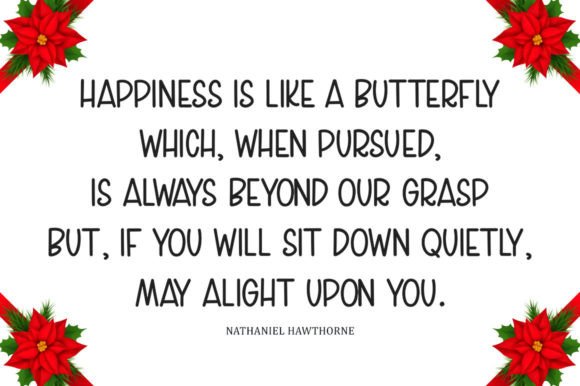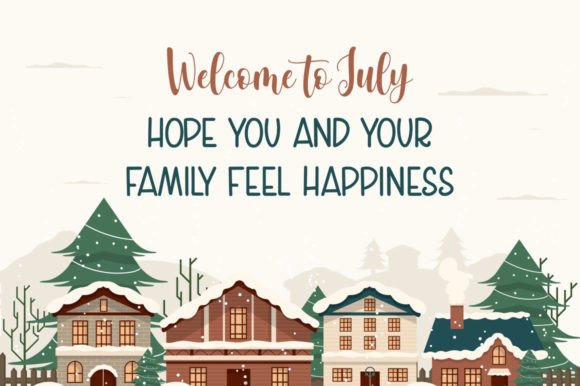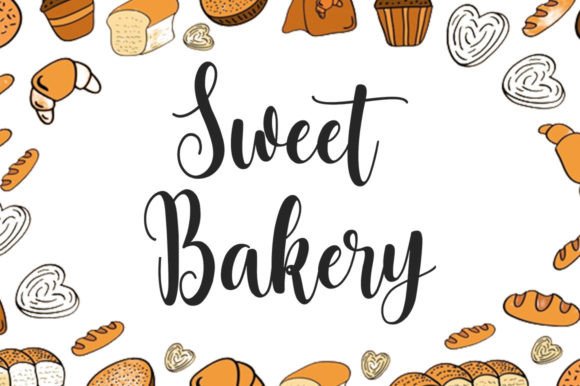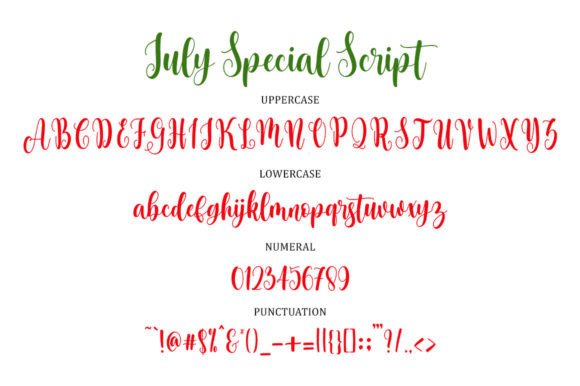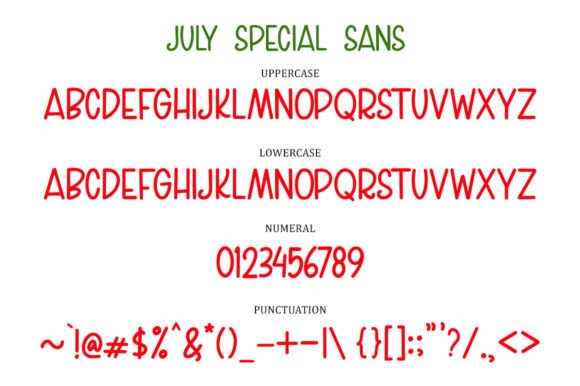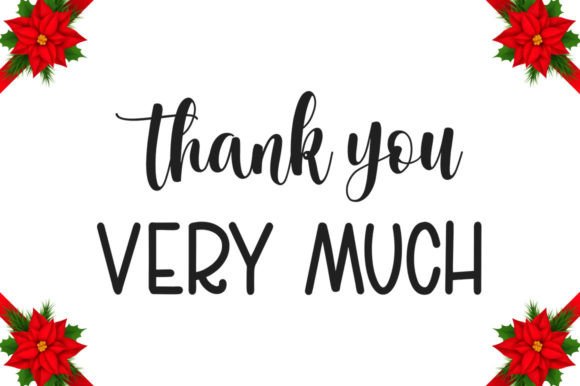
Introduction to July Special Font
Have you ever stumbled upon the perfect font while working on a creative project, and suddenly, everything falls into place? That’s exactly what happened to many designers who discovered the July Special Font duo. This stylish and soft combination of sans serif and script fonts has been a game-changer for those looking to elevate their designs.
Whether you’re crafting beautiful wedding invitations, designing eye-catching social media posts, or creating stunning stationery art, the July Special Font is an ideal design resource. Its versatility and high quality make it a valuable asset for designers, and the best part? It’s available for a free download, allowing you to experiment with it without any limitations.
- High-quality, unique font design perfect for creative projects and designs
- Perfect for digital and print designs, including posters, flyers, and business cards
Honest Review: July Special Font
As a designer, I’m always on the lookout for high-quality design resources to enhance my creative projects. The July Special Font caught my attention with its unique style and free download option. Let’s dive into the details and see if it’s worth adding to your design arsenal.
- Unique and stylish design that can add a personal touch to your creative projects
- Transparent background, making it easy to customize and blend with other design elements
- High-quality font that’s perfect for professional designs and presentations
- May not be suitable for all types of projects, especially those requiring a more minimalist approach
- Limited customization options, which may limit its use in specific design scenarios
Overall, the July Special Font is a great addition to any designer’s toolkit. While it may have some limitations, its unique style and high-quality design make it a valuable resource for creative projects. With a little creativity, you can unlock its full potential and take your designs to the next level.
Use the July Special Font to add a touch of elegance to your creative projects. Experiment with different font sizes, colors, and styles to create a unique look.
Combine the July Special Font with a transparent background to create a modern and minimalist design.
The July Special Font is perfect for:
Designing wedding invitations and stationery
Creating social media graphics and posts
Developing branding and marketing materials
Yes, the July Special Font is a high-quality design resource with a clear and legible character set. The font features a range of glyphs, including Latin and Cyrillic characters, and is optimized for use at various font sizes. The font’s technical specifications include a font size range of 8-120 points, with a recommended font size range of 12-48 points for optimal readability.